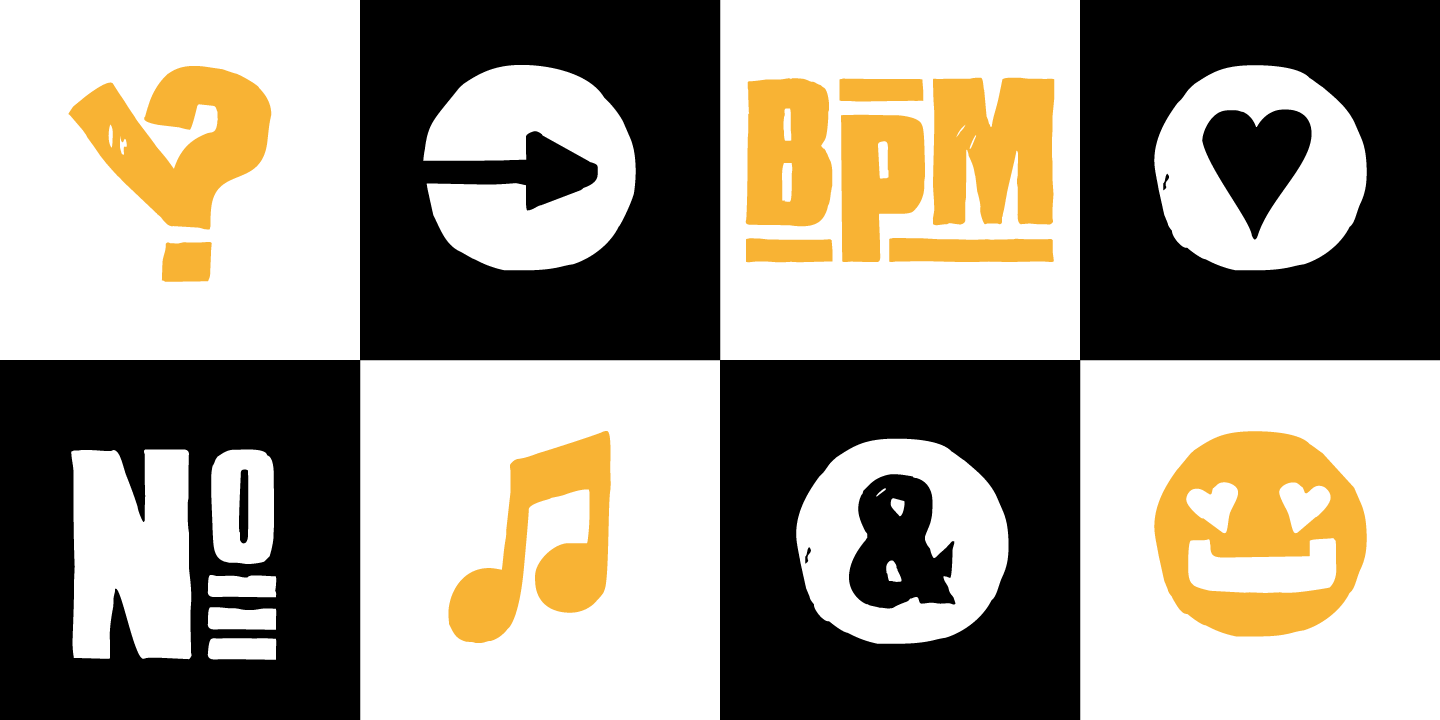
Hand Sketch Rough Poster Font Free Download is a bold, textured display typeface that mimics the authentic feel of hand-drawn sketching with a raw, artistic edge. Featuring rough outlines, imperfect strokes, and organic character, Hand Sketch Rough Poster Font is perfect for posters, album covers, event flyers, creative branding, packaging, and social media graphics. Its handmade, edgy vibe makes it ideal for projects that aim to look authentic, rebellious, and visually striking.
Whether you're creating eye-catching promotional materials, bold artistic designs, or statement branding, Hand Sketch Rough Poster Font adds personality and grit to your work. Its bold, rough texture ensures your message stands out across both print and digital media with a handcrafted touch.